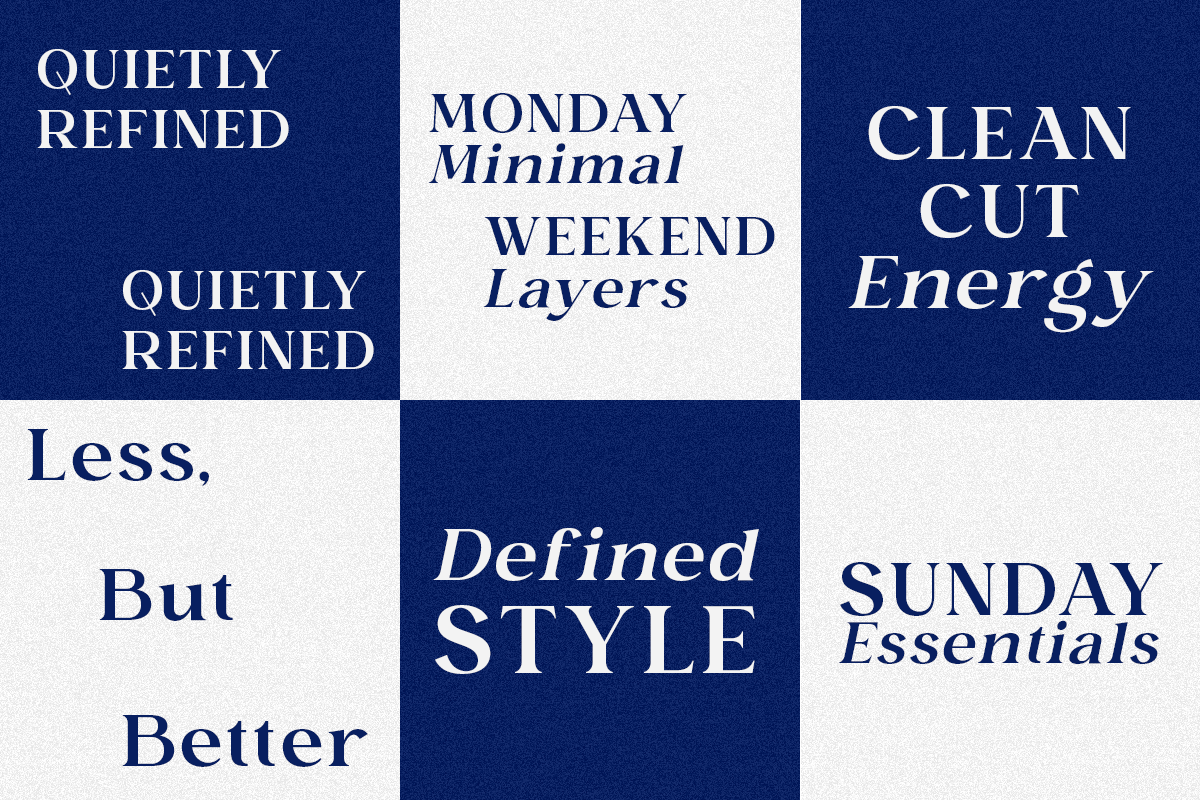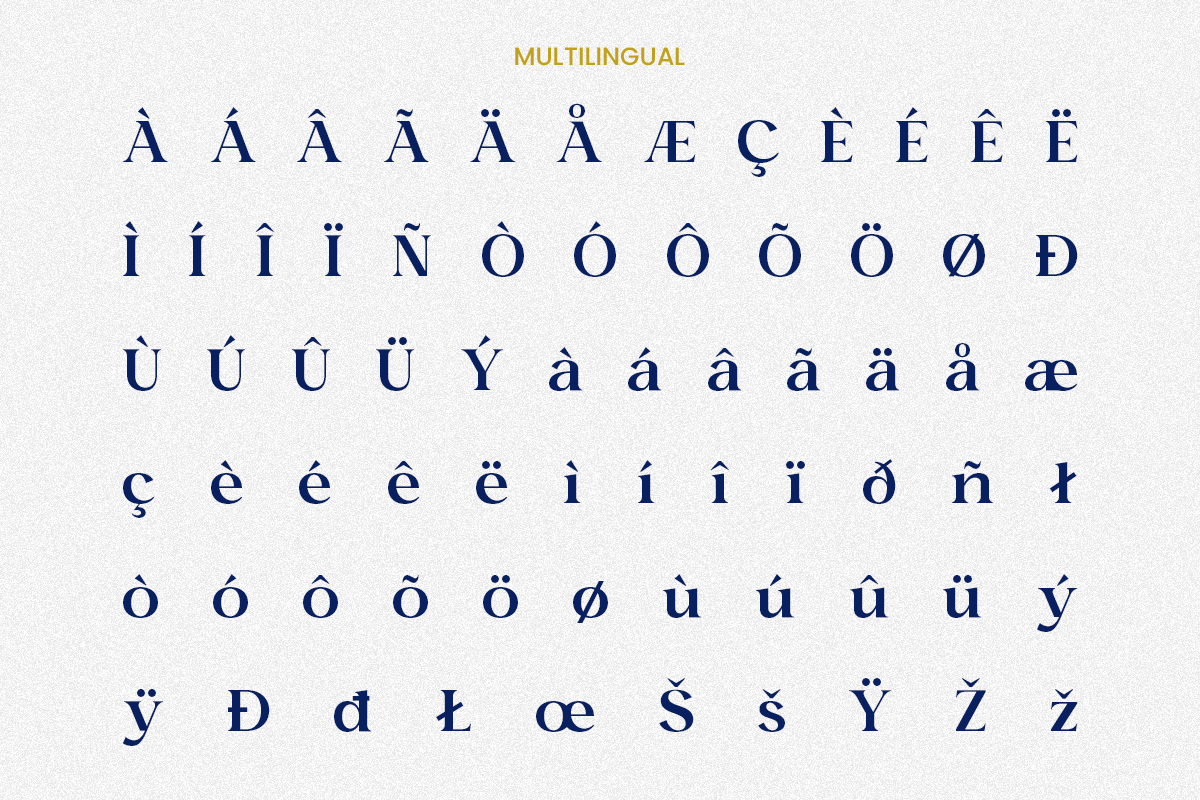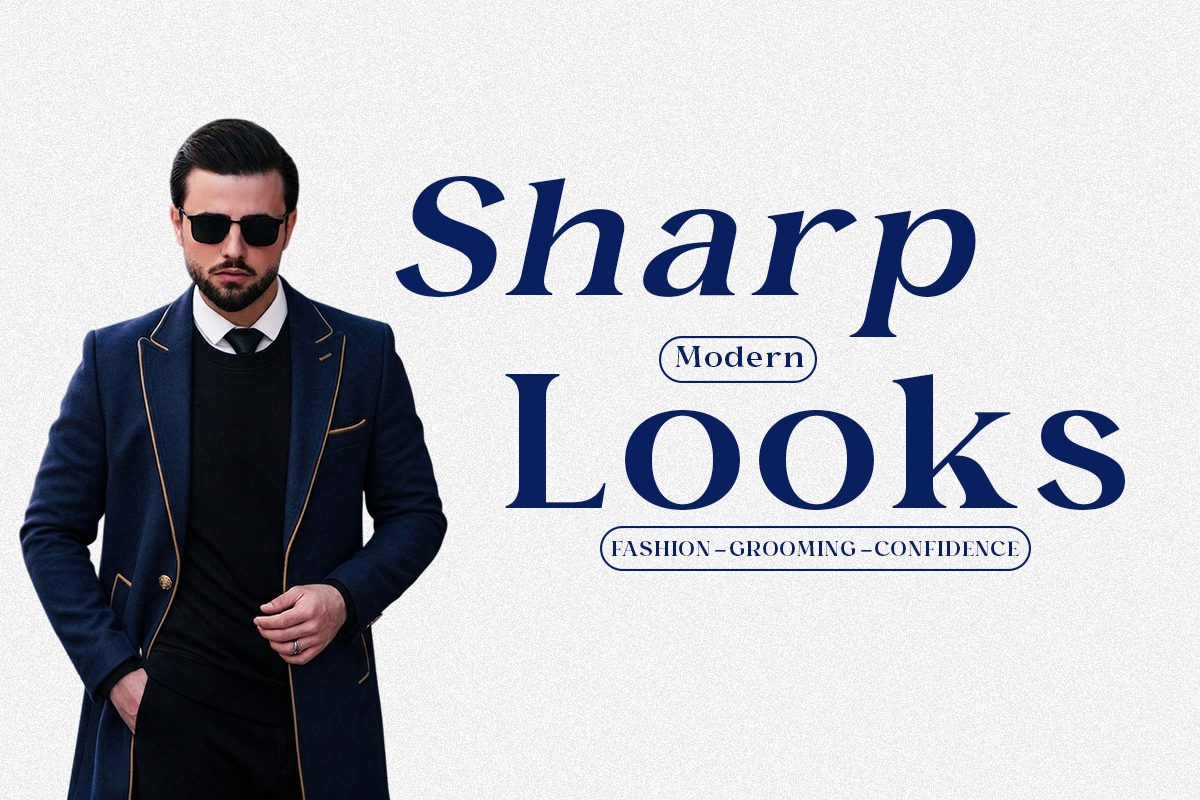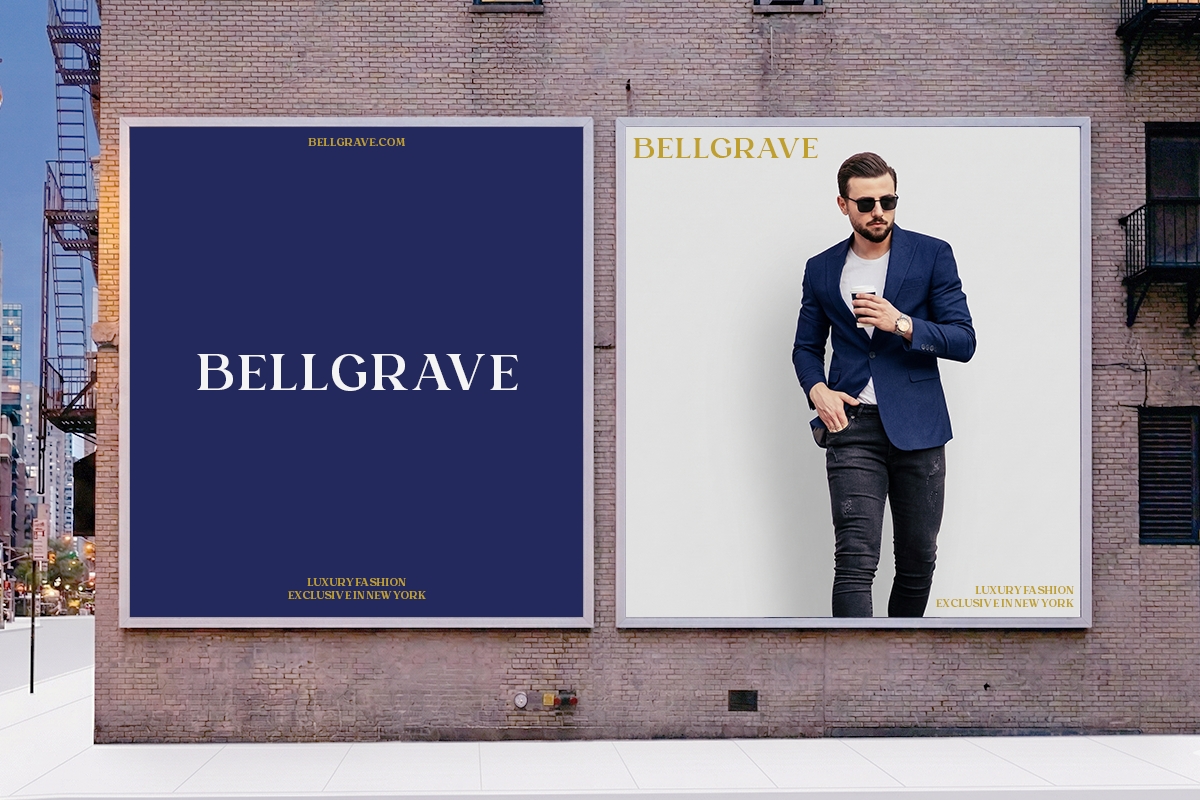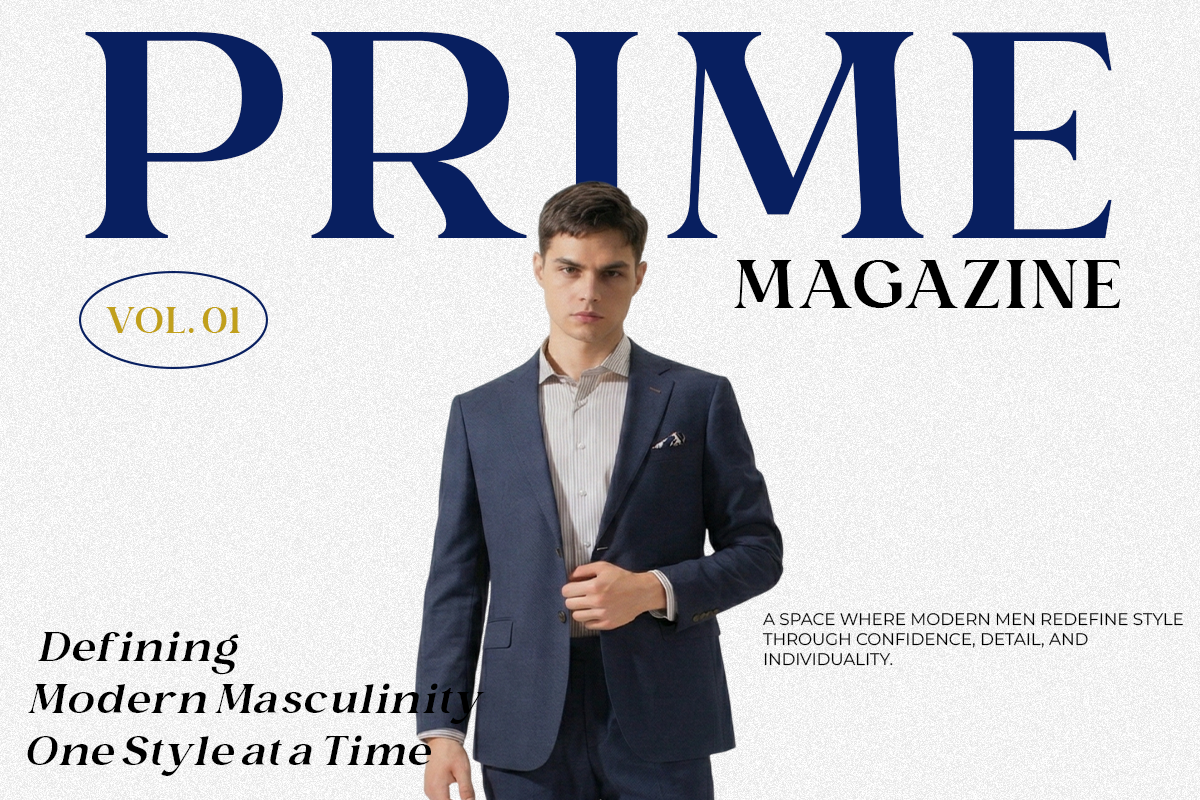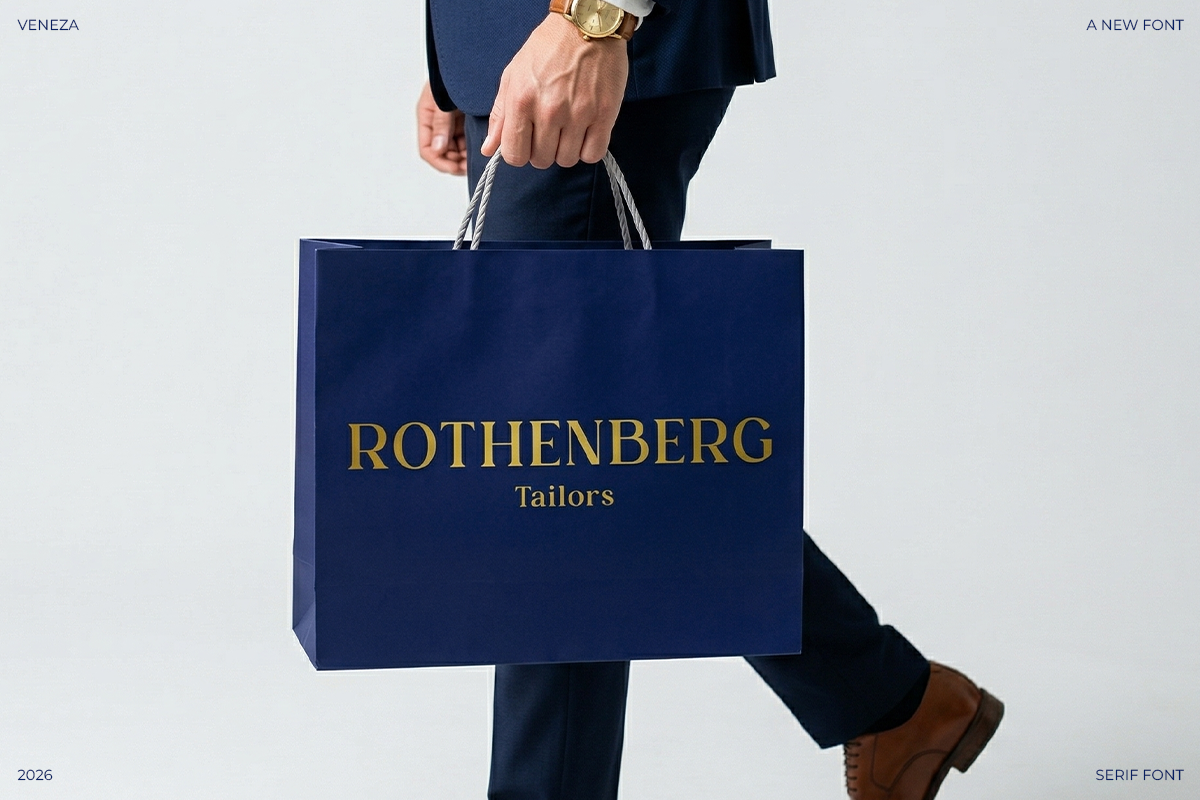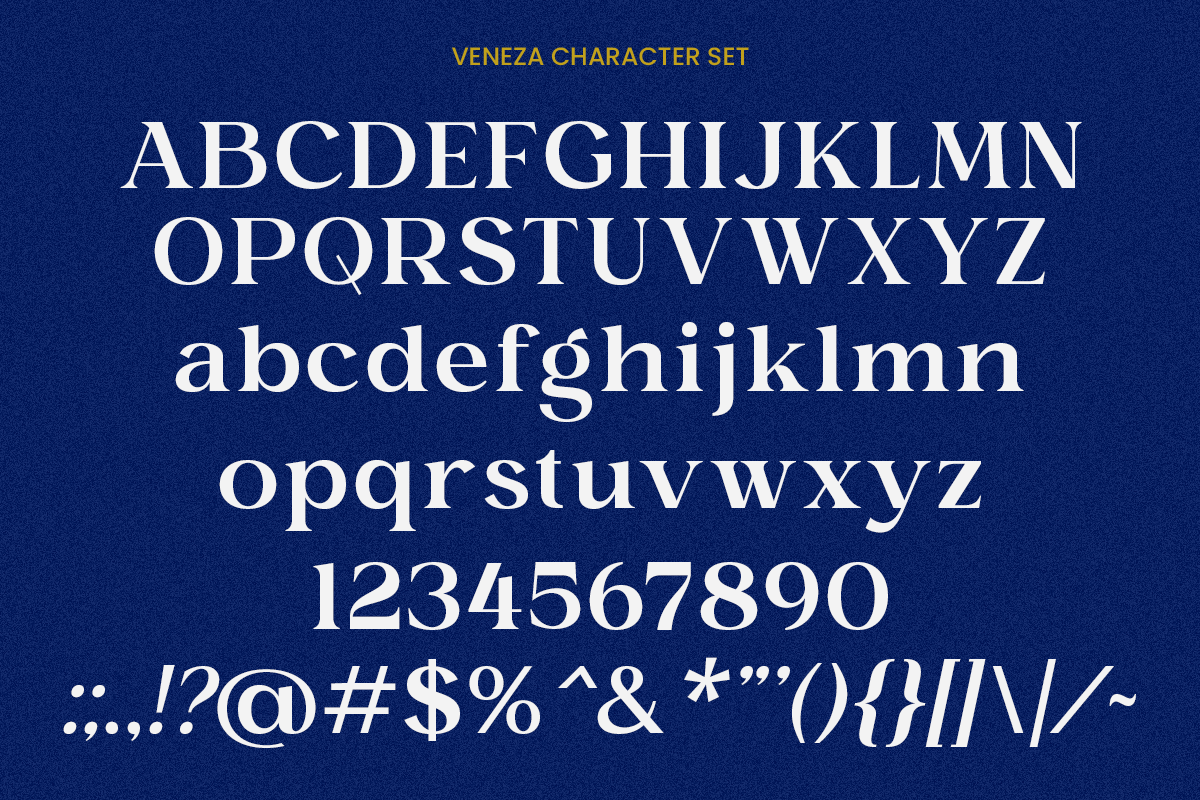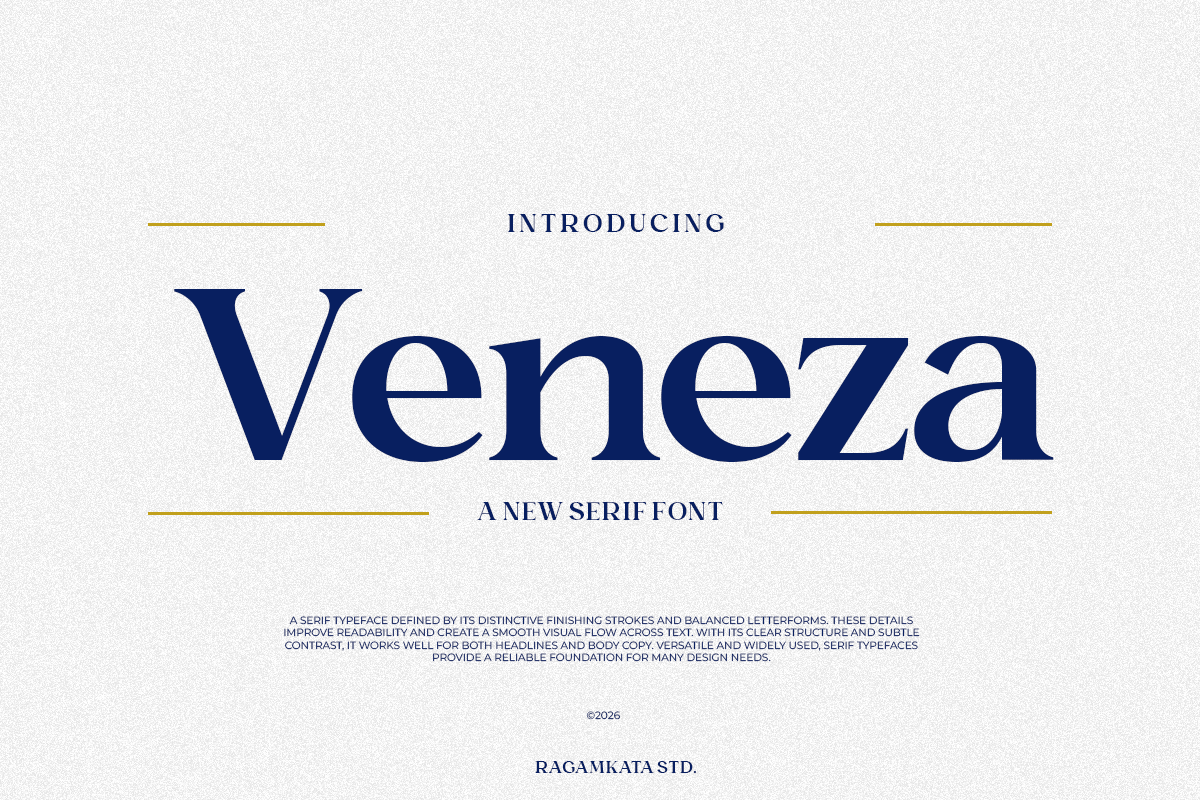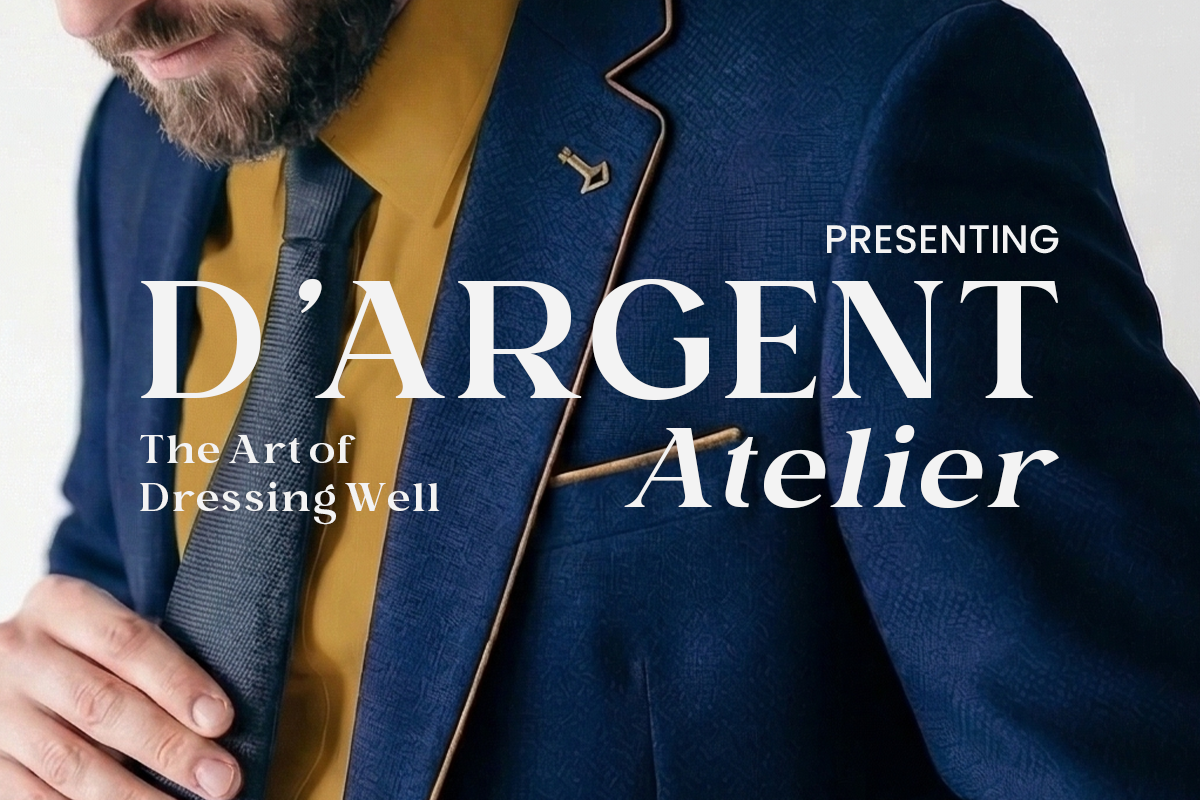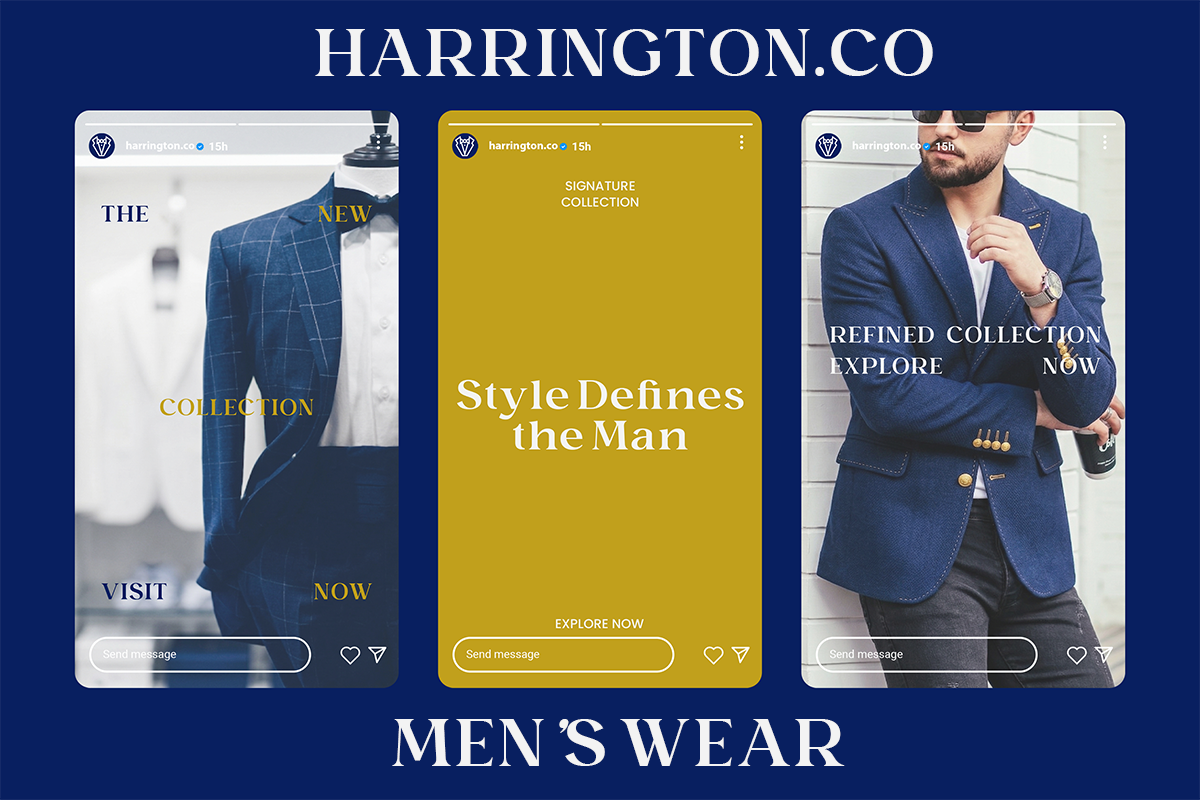
Veneza - Modern Serif Typeface
Veneza is a modern serif font designed with clarity, balance, and refined simplicity in mind. Its clean structure and subtle contrast create a smooth reading experience while maintaining a strong visual identity. The carefully crafted letterforms give it a timeless and professional look, making it suitable for both contemporary and classic design styles.
Built for versatility, Veneza works seamlessly across headlines and body text. Its balanced proportions ensure excellent readability, while its elegant finishing strokes add just enough personality to elevate any layout. Whether used in editorial design, branding, or corporate identity, it delivers a polished and reliable typographic presence.
With its minimalist elegance and functional design, Veneza is perfect for designers seeking a dependable serif font that adapts to various creative needs. From magazines to business branding, it provides a solid foundation for clean, professional, and sophisticated visual communication.